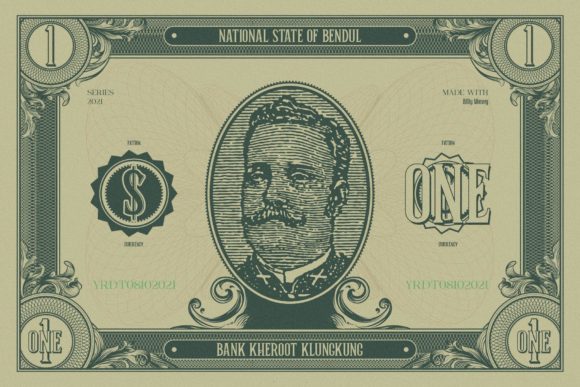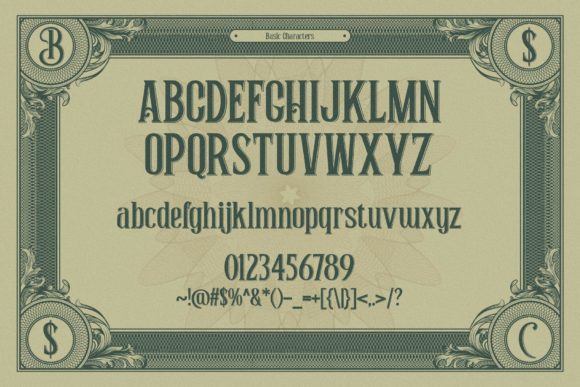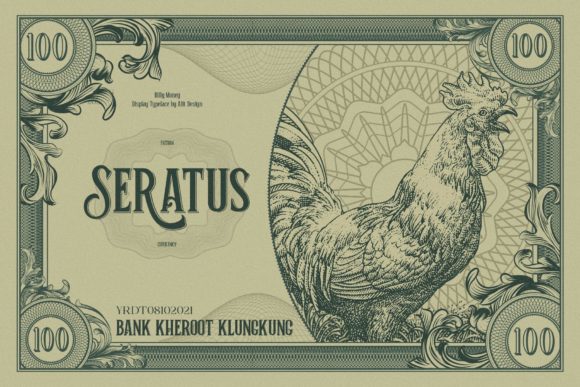
Billy Money Font
The Billy Money is a display typeface inspired by the design of banknotes, most of which use an outdated Victorian style. This font is perfect for an elegant Victorian-style vintage design. You can use it to design alcoholic beverage packaging, certificate design, tattoo, pomade designs, or barbershops.